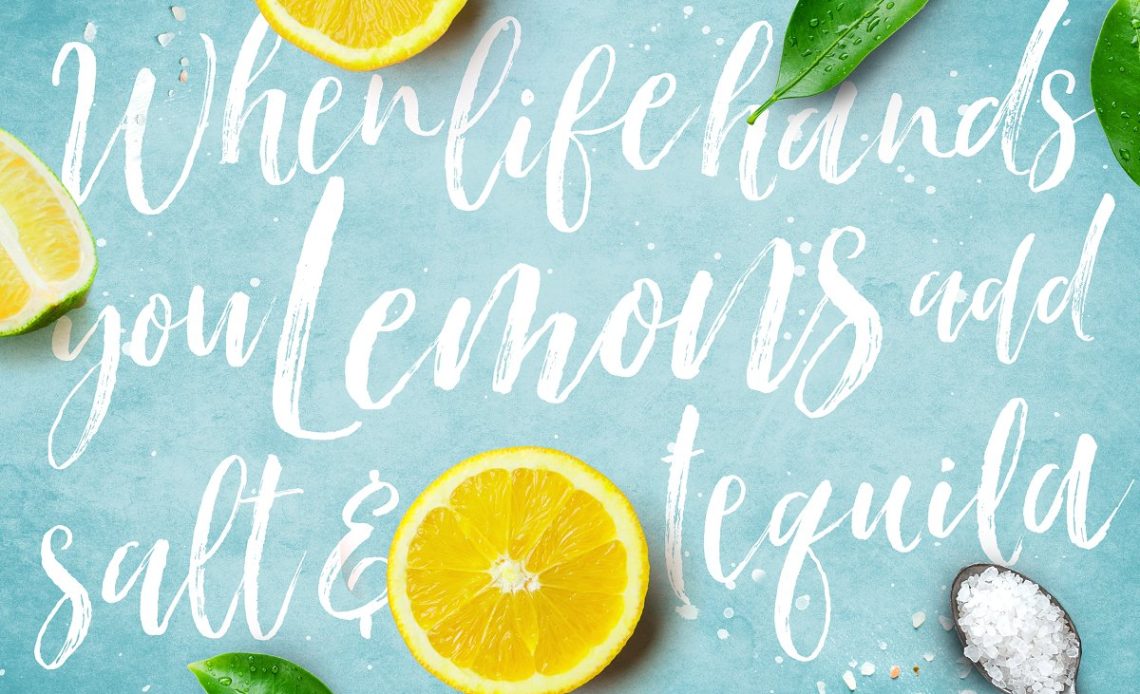
Introducing Bloomishly Brush Font, the perfect addition to your font collection! Created by Nicky Laatz, Bloomishly is a voluptuous new brush script with a fabulously flirtatious nature. Its playfully bouncy baseline and thick flourishing lines make it ideal for adding a fresh and unique look to all kinds of designs. But why should you download Bloomishly? Here are just a few reasons:
Firstly, Bloomishly comes with a full set of alternate characters - an entire second font - allowing you to add that extra unique touch to your design and make it easier to achieve the exact look you want. And with four different variants to choose from (Regular, Broad, Italic, and Broad Italic), you'll have even more flexibility in your designs.
But that's not all - Bloomishly also offers multilingual support for a wide range of countries, including Danish, Dutch, English, Filipino, Finnish, French, Galician, German, Indonesian, Irish, Italian, Norwegian Bokmål, Norwegian Nynorsk, Portuguese, Romansh, Somali, Spanish, Swedish, and Swiss German. So no matter where you're based, you'll be able to add a touch of Bloomishly to your designs.
In short, Bloomishly is the best font for Christmas cards and so much more. Its alternate characters, multiple variants, and multilingual support make it a versatile addition to any font collection. And with Nicky Laatz on hand to help if you get stuck, there's no reason not to give Bloomishly a try. So what are you waiting for? Download Bloomishly today and elevate your designs to the next level!